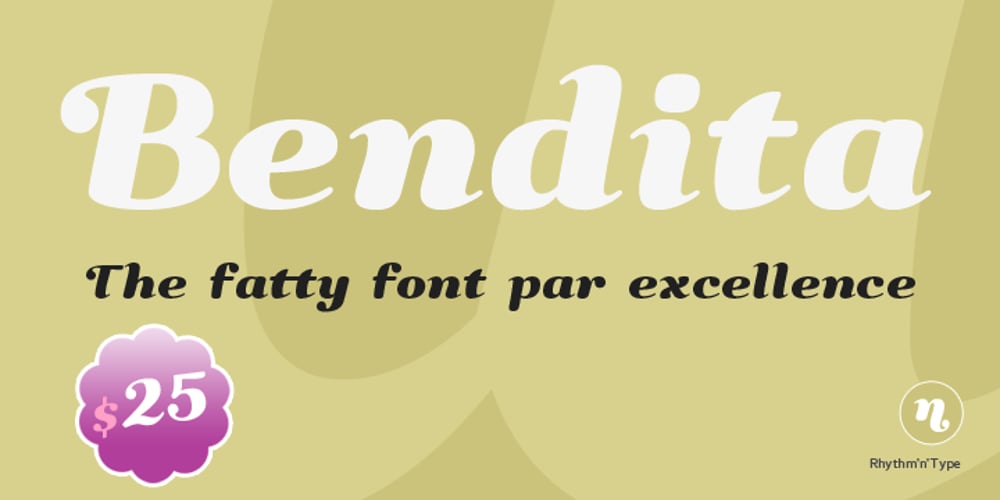
Bendita Font Family was designed by published by Rhythm ‘n type. Bendita contains 1 styles and family package options. Bendita could evoke the didones of the 19th century. It has an extreme contrast that makes it only suitable as a display typeface, with its characteristic shapes. The fatty type par excellence.